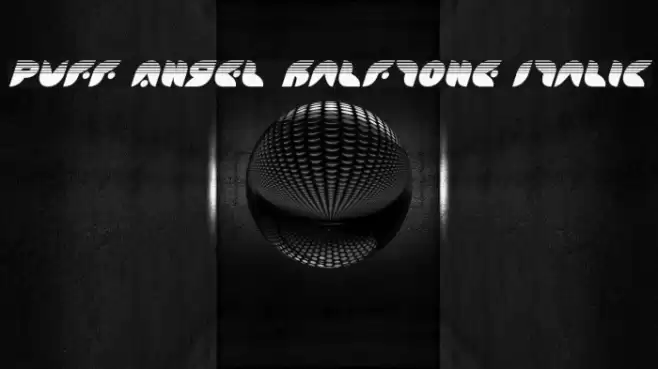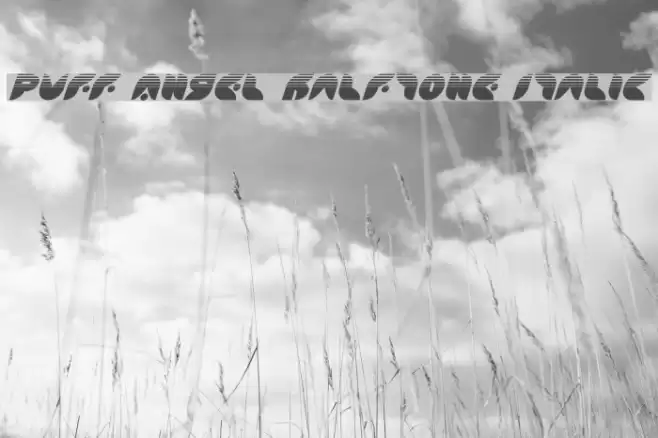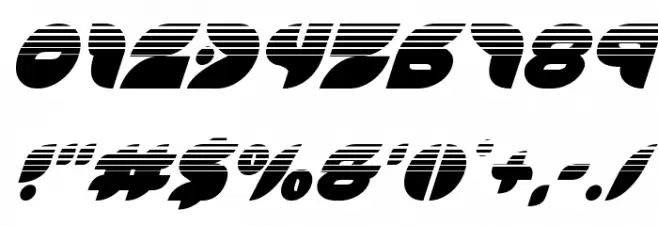
Puff Angel Halftone Italic Font
Puff Angel Halftone Italic Description
This font features a bold, dynamic style with a halftone effect that gives it a unique, textured appearance. The characters are italicized, adding a sense of movement and energy. Each letter is composed of thick, rounded strokes with horizontal lines cutting through, creating a layered, dimensional look. The design is modern and eye-catching, making it suitable for projects that require a bold statement. The uppercase and lowercase letters maintain a consistent style, with numerals and special characters following the same design principles. The overall aesthetic is both futuristic and playful, ideal for creative and innovative applications.
A bold, italicized font with a halftone effect and dynamic, modern style from Uncategorized fonts.
- Proposed Projects: Ideal for posters, album covers, branding, and any project needing a bold, modern touch.